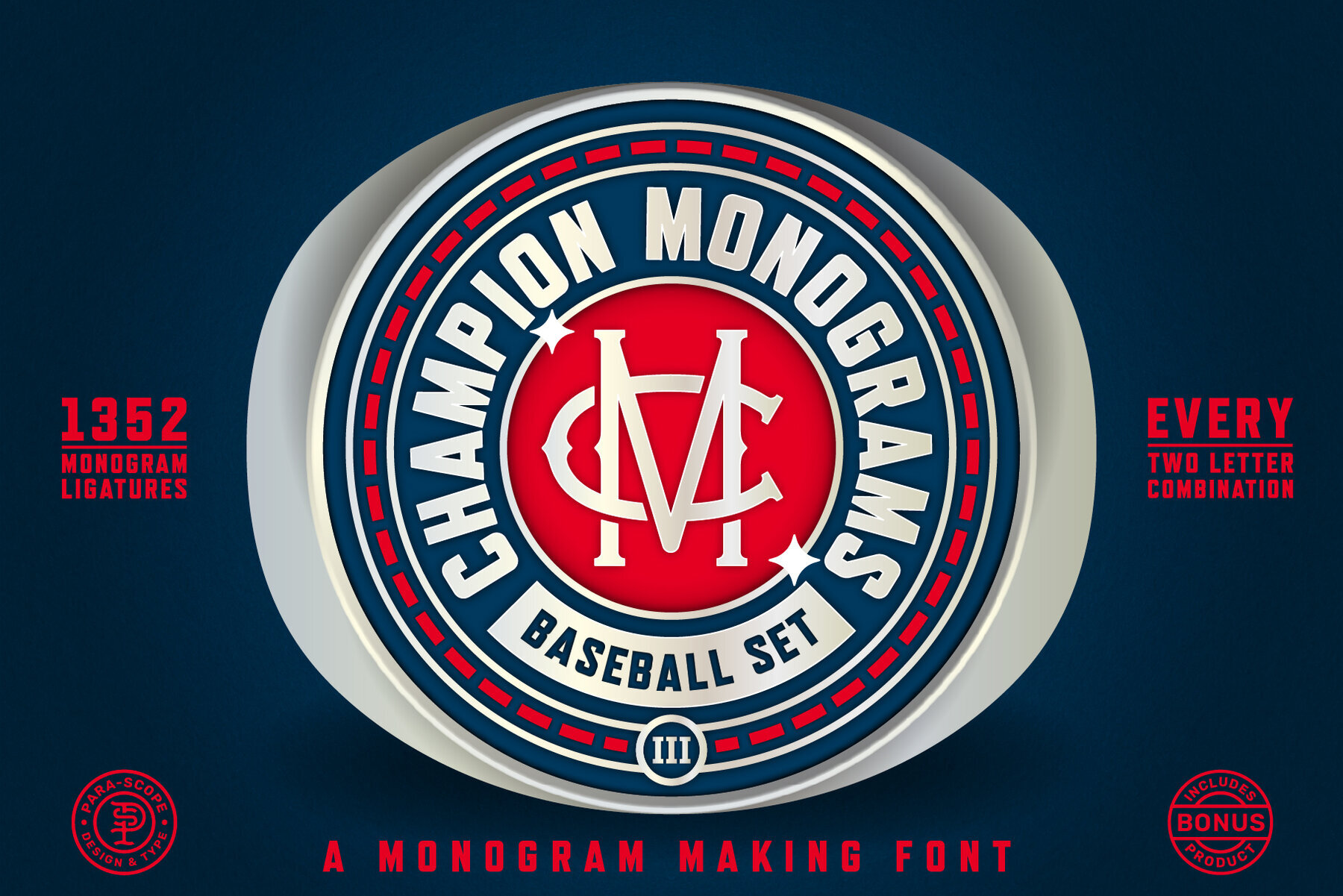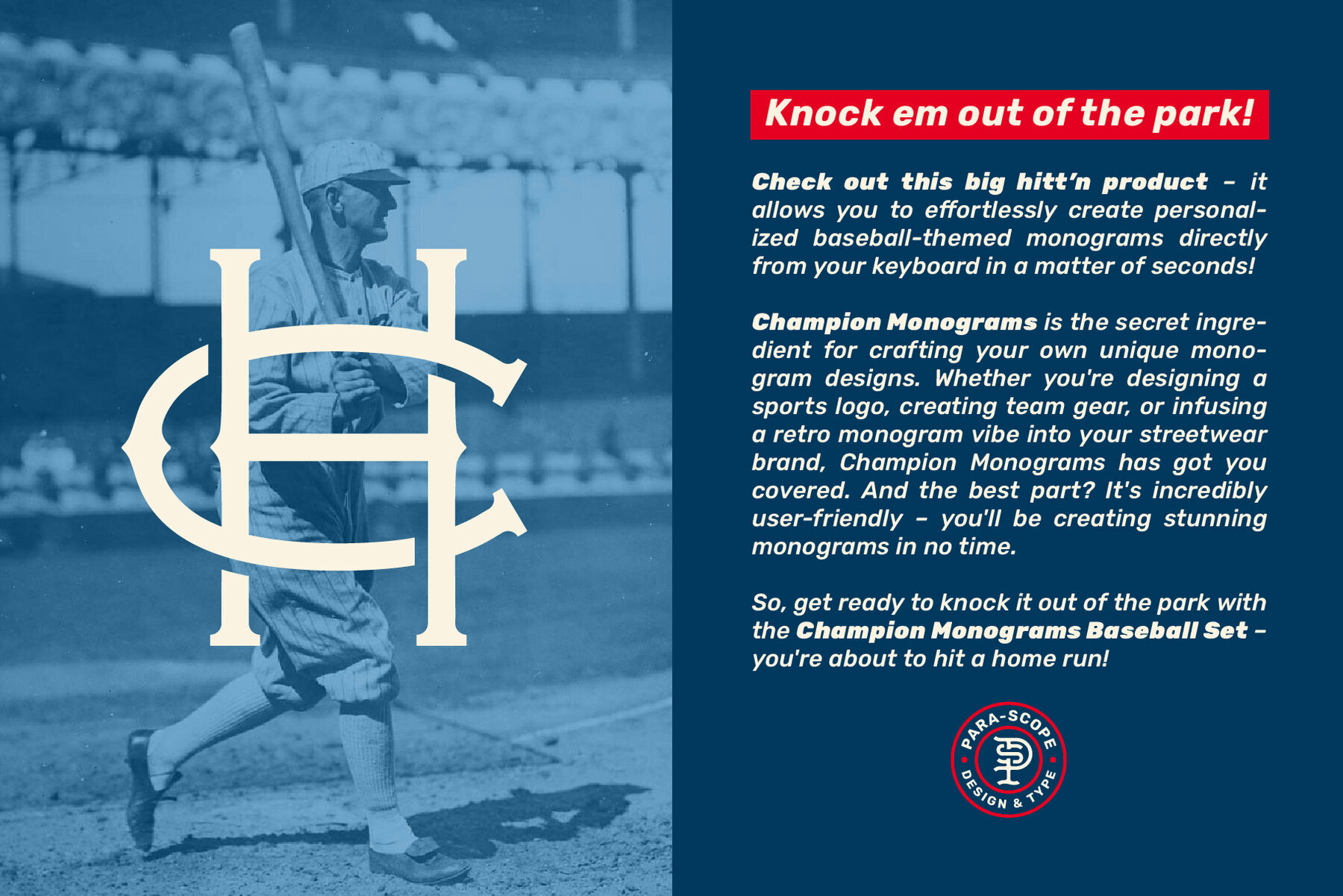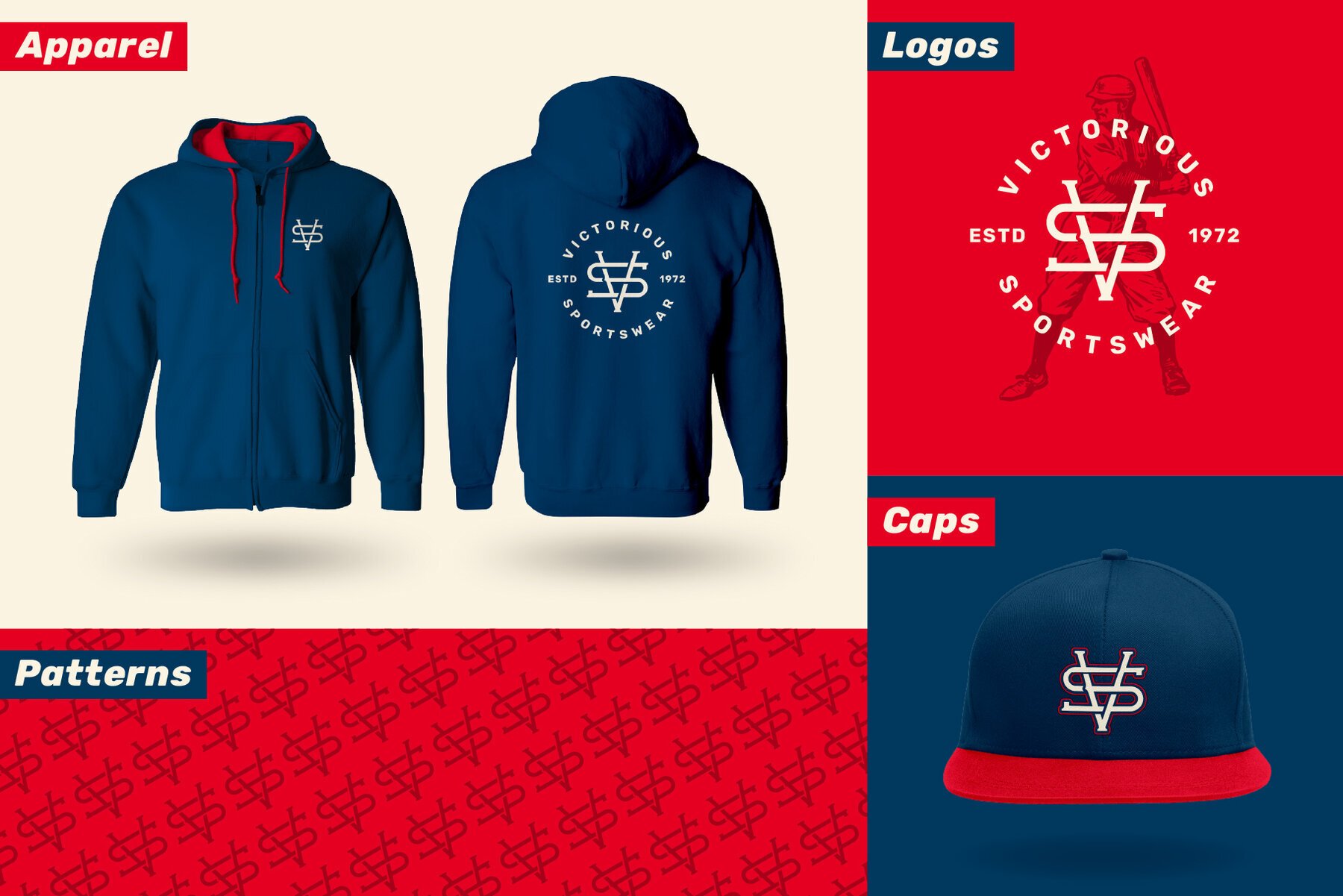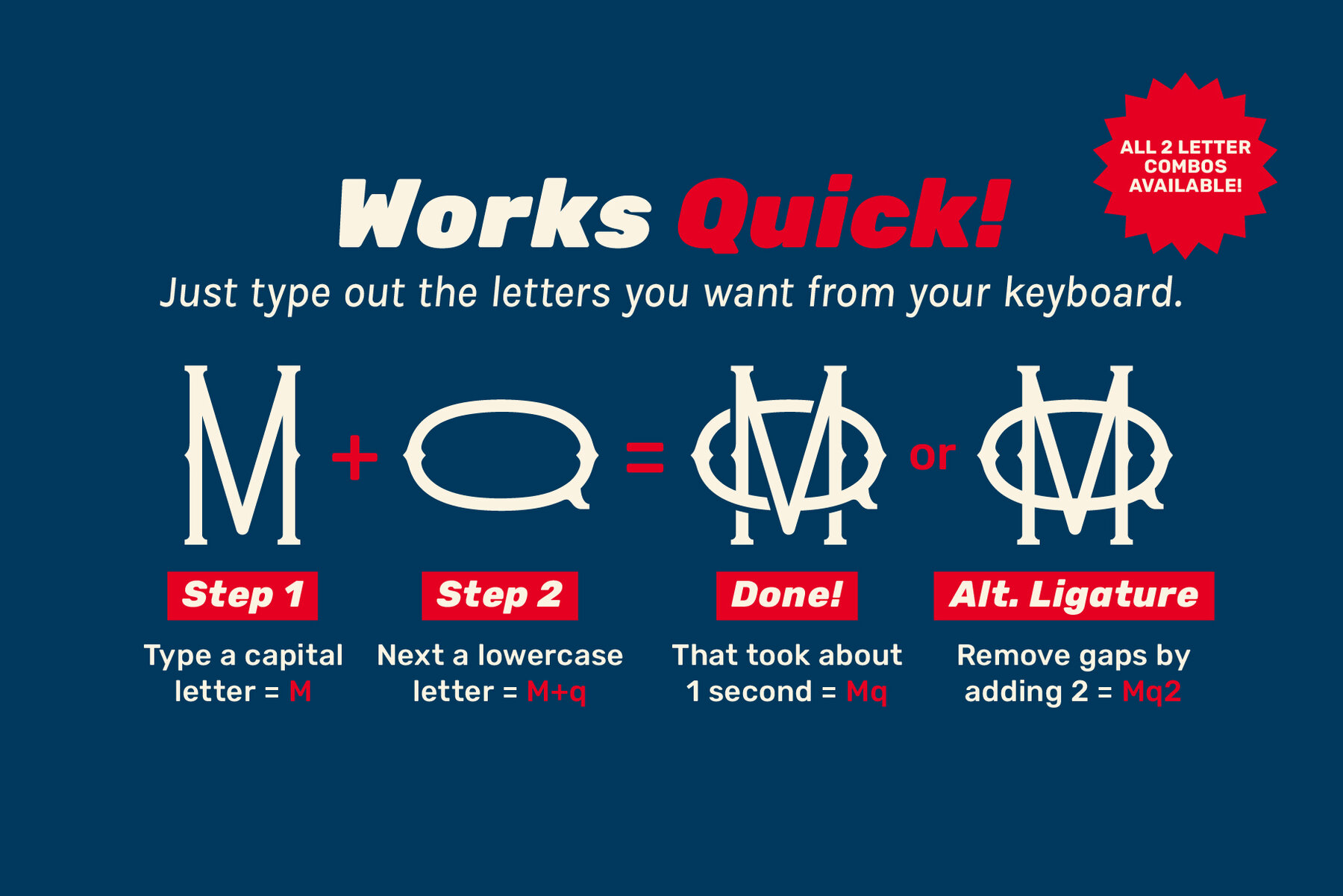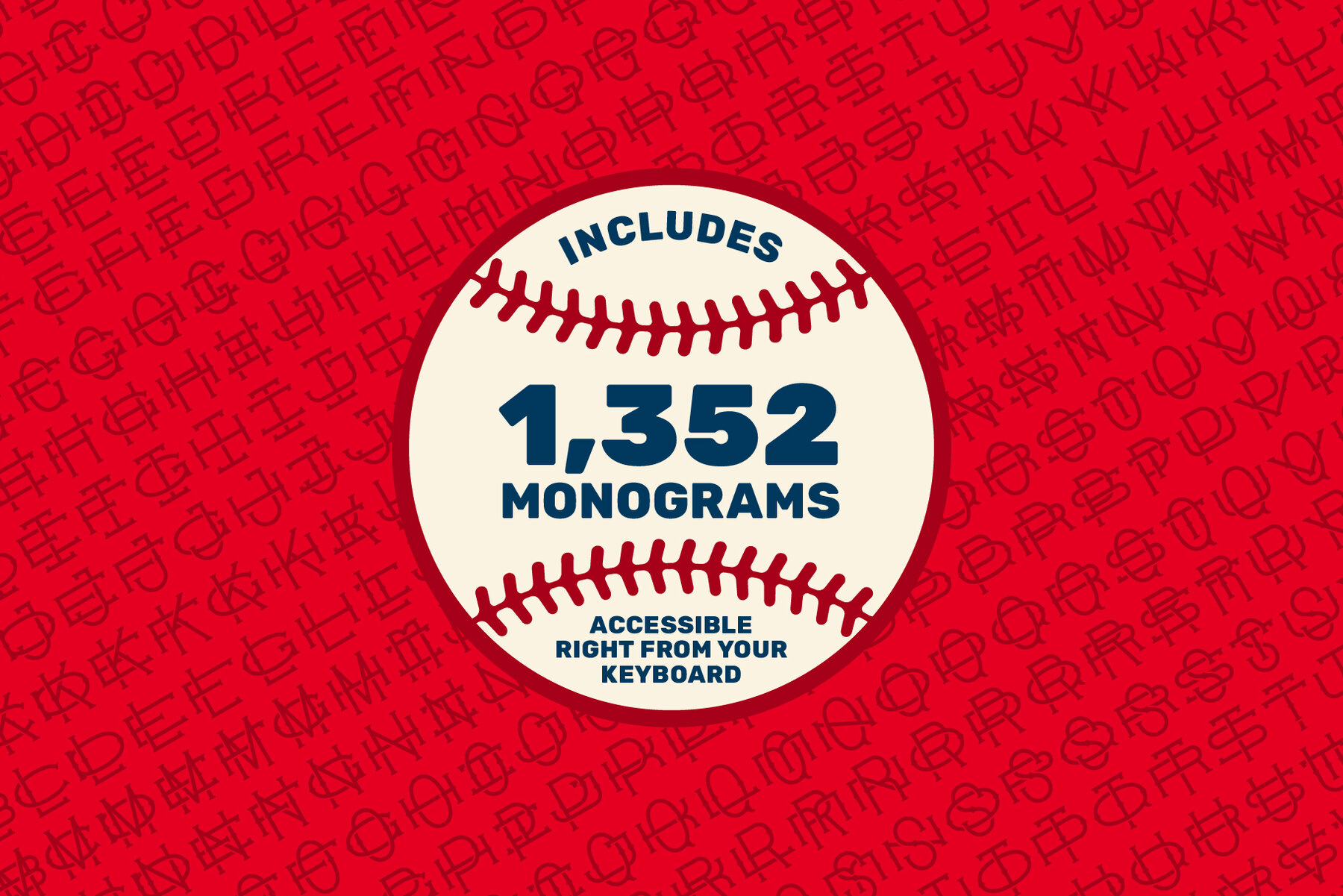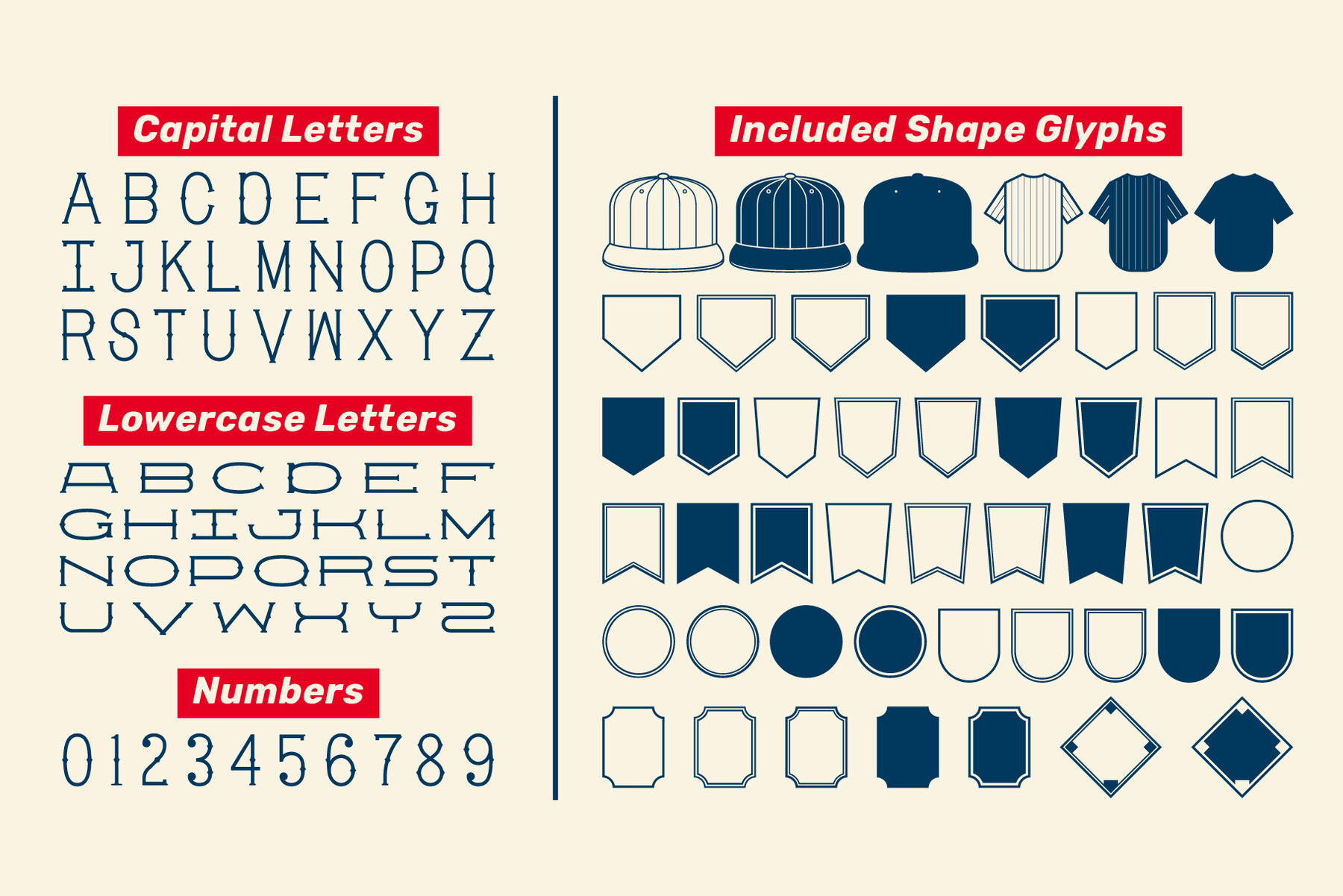
Attention all graphic designers, baseball fanatics, streetwear brands, and monogram enthusiasts – your creative breakthrough is just a few keystrokes away! Step up to the plate with the Champion Monograms Font: Baseball Series – a perfect fusion of vintage-style monograms and the vibrant spirit of baseball designed to elevate your creative game. This font is more than just a typeface; it's your powerful tool for effortless monogram customization. Tailored specifically for you, it simplifies the complexities of combining two letters to make a monogram – just type any capital letter followed by any lowercase letter, and watch a monogram masterpiece materialize before your very eyes. Unleash your creativity with an extensive collection of 1,352 monogram ligatures and 48 custom shape glyphs, making instant monogram creation a walk in the park. And the best part? There's no design expertise required – just swing your fingers across the keyboard, and let the magic happen. Imagine having over 60,000 different ways to express your creativity in just seconds. That's what this Champion Monograms Font offers. Ready to elevate your monogram game to the next level? Seize the Champion Monograms Font now and immerse yourself in the magic of monogram creation. Hit it out of the park with a perfectly tailored monogram that's just right for your project and that garners OOHS and AHHS from your audience. Plus there's a free BIG HITT'N BONUS! A Vector Baseball Jersey mockup which you can use to design and customize your own Baseball Jerseys right inside Adobe Illustrator. What's Included ChampionMonograms-Baseball 3.OTF PDF Quick Start Guide (for font) Any Future Updates (BONUS) VECTORIZEIT Baseball Jersey Mockup 3 PDF Quick Start Guide (for mockup) Any Future Updates Compatible With Adobe Illustrator CS4+ Adobe Photoshop Interested in a special offer that not only lowers the price of this product but also quadruples your creative possibilities? Then check out THE GRAND SLAM BUNDLE! It includes all 4 Champion Monogram Fonts, plus 4 free bonus Vector Baseball Jersey mockups designed to work seamlessly with all 4 fonts. Starting at just $70, it's the best value for your money, hands down!